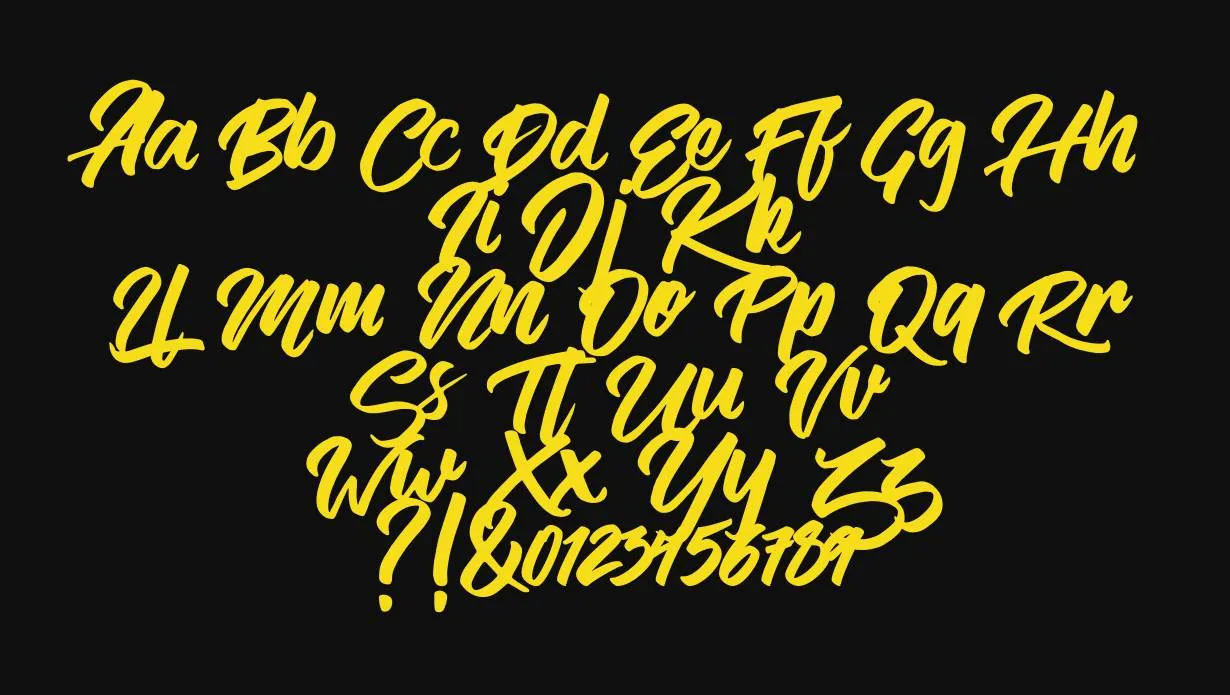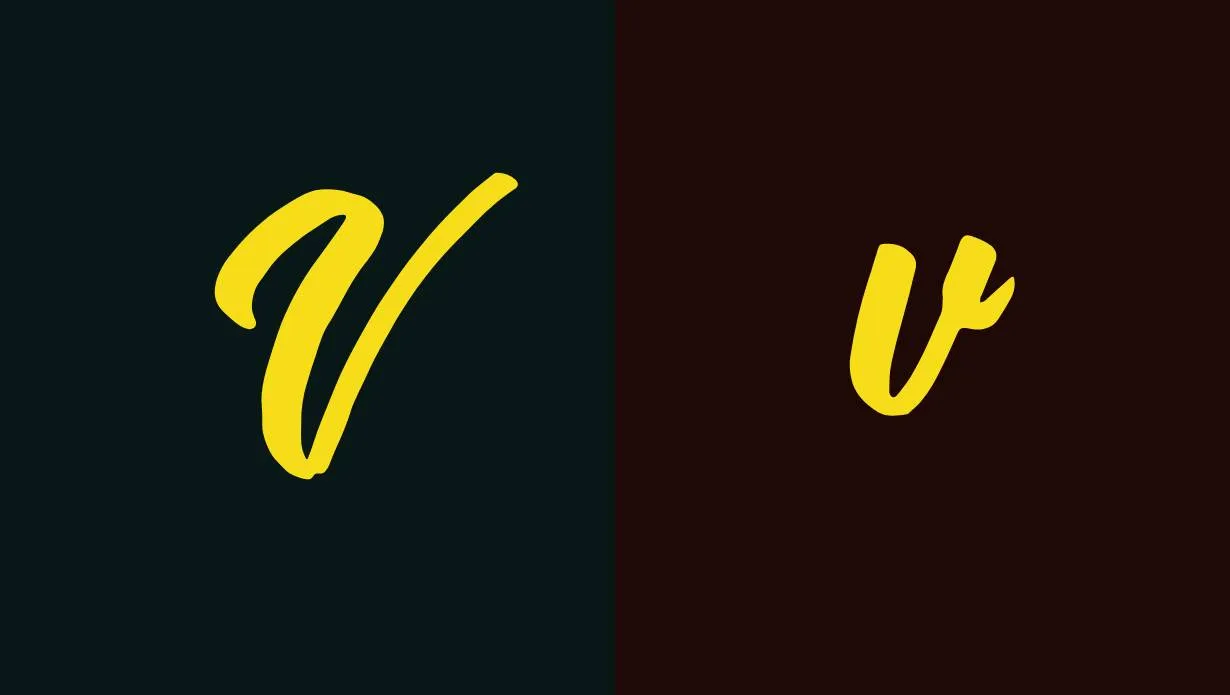
Vendetta Font is a very classy handwritten font that was designed by Alif Devan R. and manufactured by Deerhead Studios Designs. It has many characters and 72 glyphs.
The weight of the font is Semi-bold and its width is medium (normal).
| Name | Vendetta Font |
| Designer | Alif Devan R |
The writing style of this font is Italic. You can use this font for making wedding cards, invitation cards, business cards, and much more. To make attractive handwritten notes, romantic quotes, book covers, novel covers, and fashion magazines this font can also be utilized.